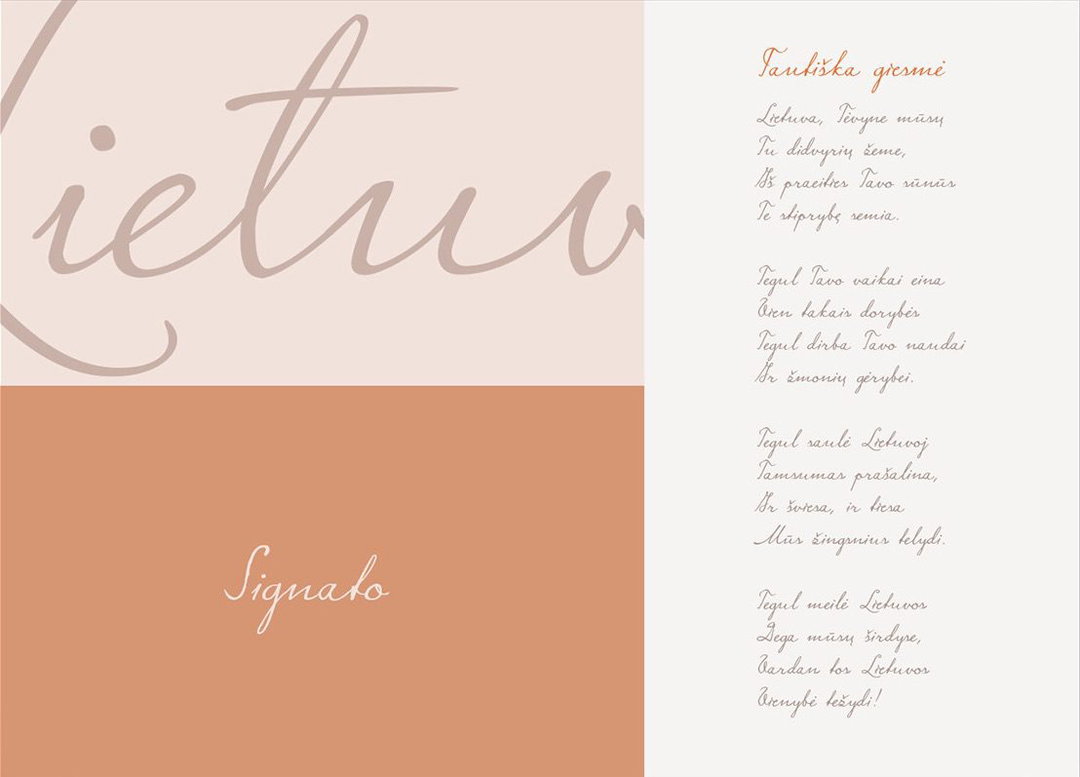
Folk agency designs Lithuanian national typeface to celebrate 100 years of independence
Folk Agency: Signato
2018 is a landmark year for Lithuania. On 16 February, the small Baltic nation will celebrate 100 years of independence. However, in the turmoil of ensuing wars and Soviet occupation, the Independence Act was lost and only recently found in Germany’s archives.
In order to resolve this situation and bring the Act back to the Lithuanian people, local design studio Folk has recreated the font used in the original Independence Restoration Act that was signed by 20 people in 1918. Titled Signato, the typeface was developed by Eimantas Paskonis who spent four months redrawing every letter with precision. In order to do so, the typographer also referenced several additional written works by Jurgis Šaulys who wrote the Independence Restoration Act. Eimantas created a total of 450 characters so that “the computer can simulate it as if a typeface as written by a person.”
Signato will be available for anyone to download, although is not intended for commercial use. Instead, its creation is intended to empower a nation that is turning another page in its history. Alongside the development of the typeface, Lithuanians around the world will be asked to sign the online version of the reinstated Independence Act using Signato, thus becoming co-signatories of the Act, figuratively returning it to the Lithuanian people.
“The significance of the Independence Act for the people of Lithuania is indescribable: our freedom, coded in each line, word, letter, or even its curvature encodes our freedom. We wanted to pull the independence out of the glass-protected display and pass it on to people so that they can use it, share it and create a future story,” Ignas Kozlovas, creative director of Folk agency explains. “Freedom is not a document, freedom is an opportunity to express and share your thoughts with others around the world,” he adds.
The country’s Prime Minister has vouched to use the typeface for the entire year, as have several official institutions. Full of personality and history, the script typeface uses Latin, German and Lithuanian alphabets and a video of its creation can be below.